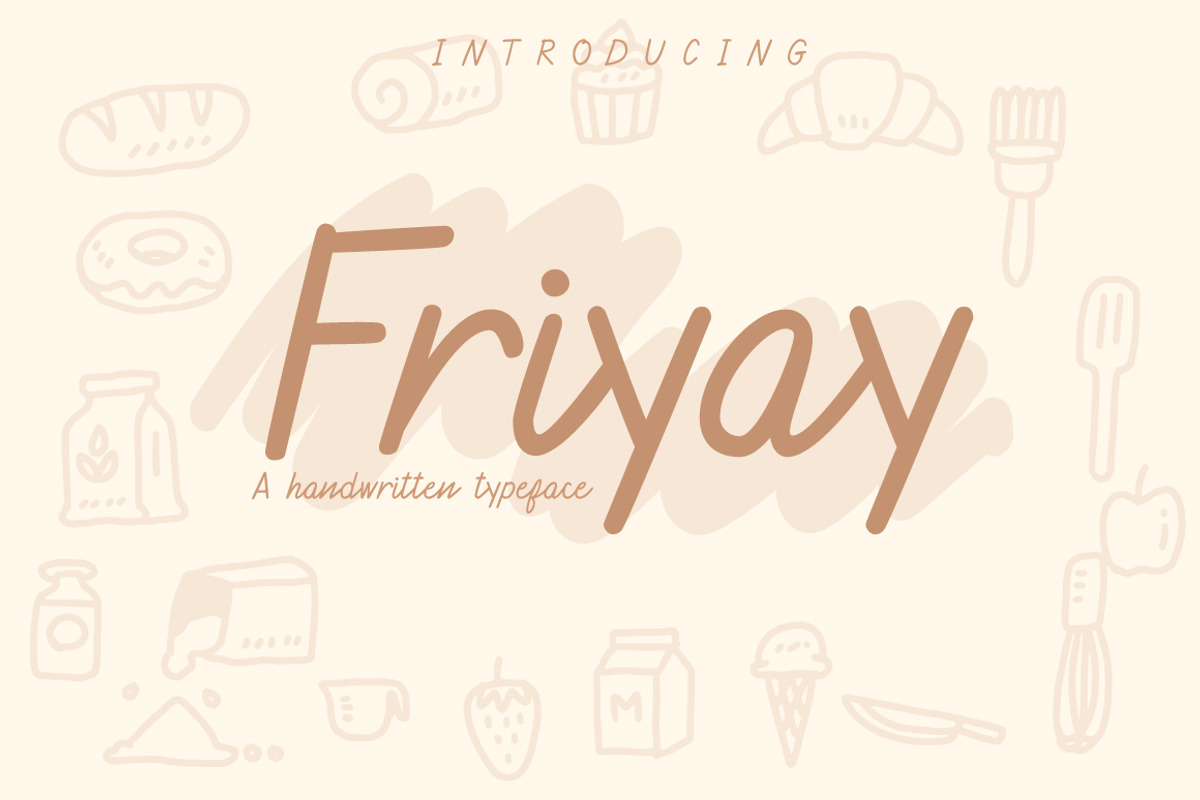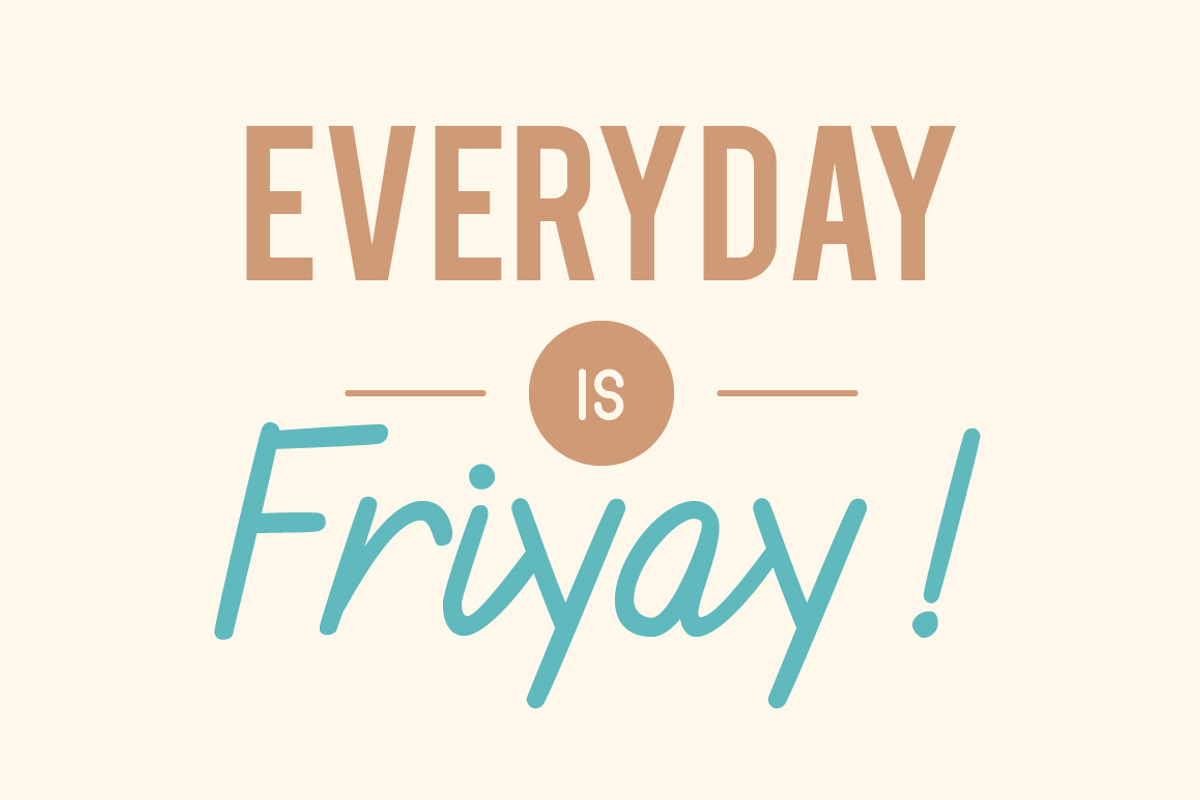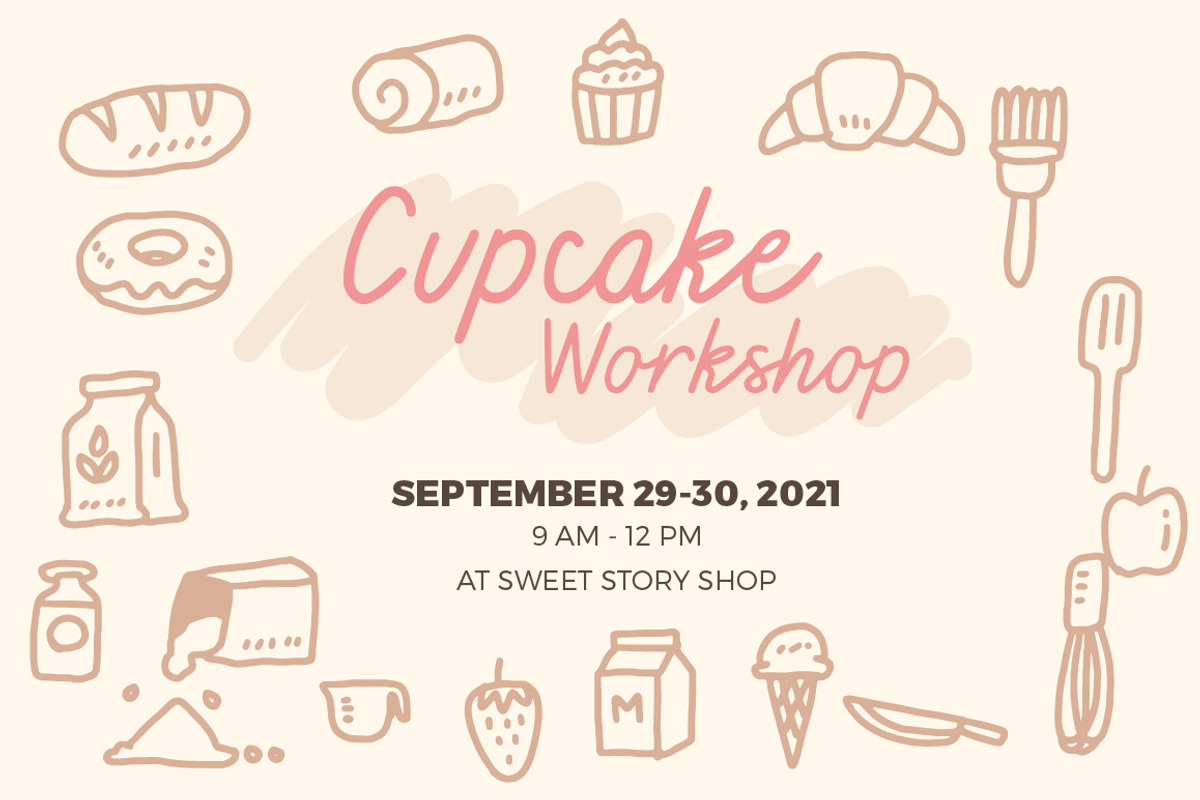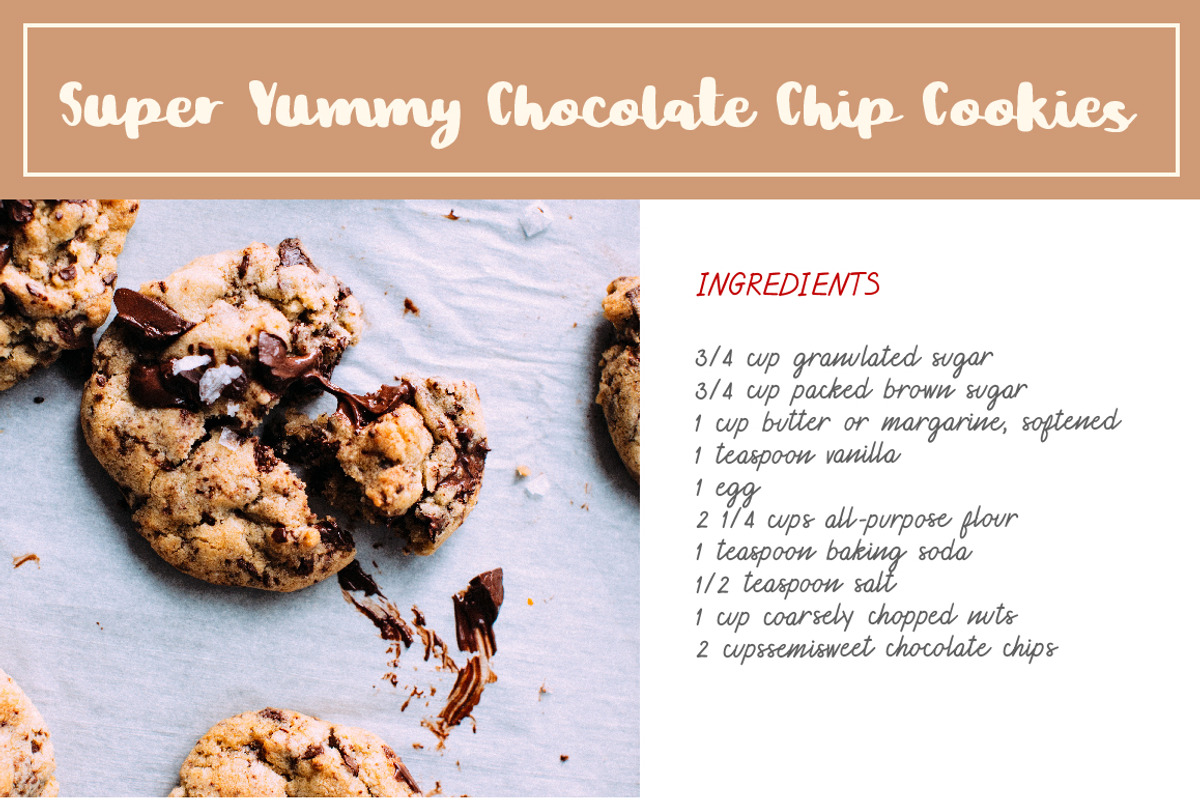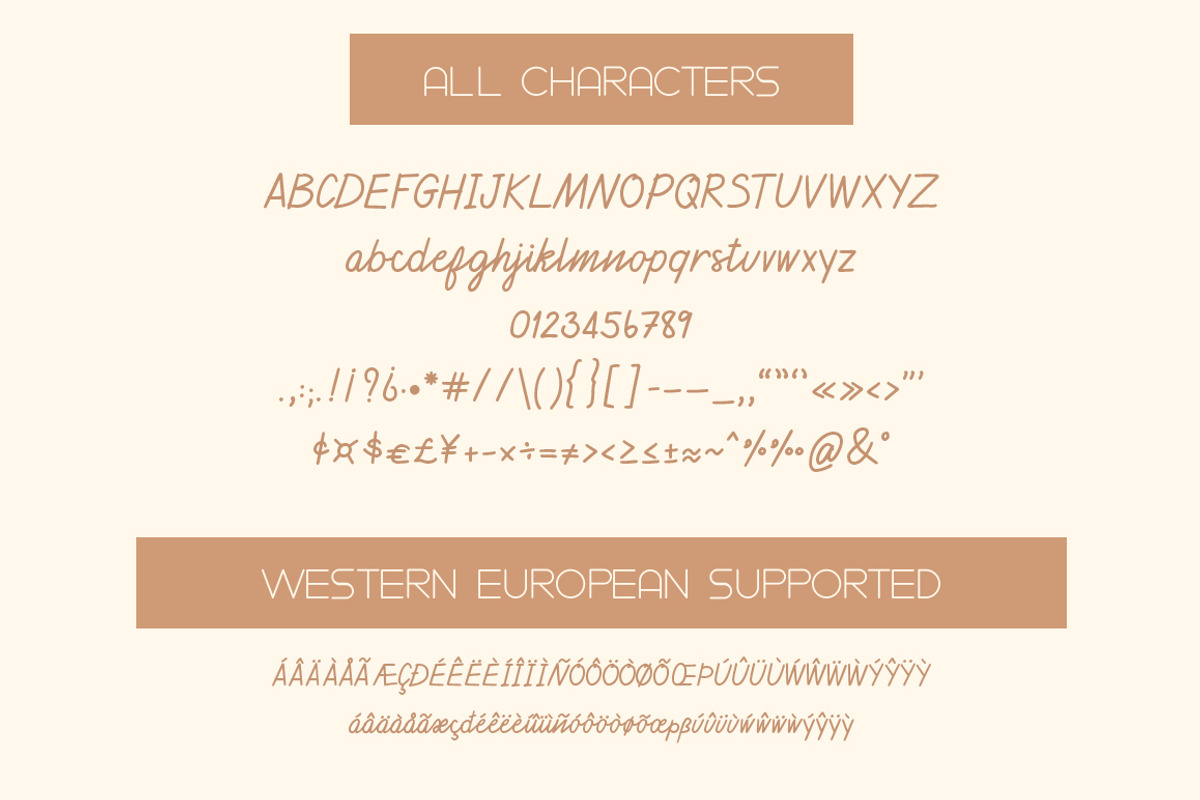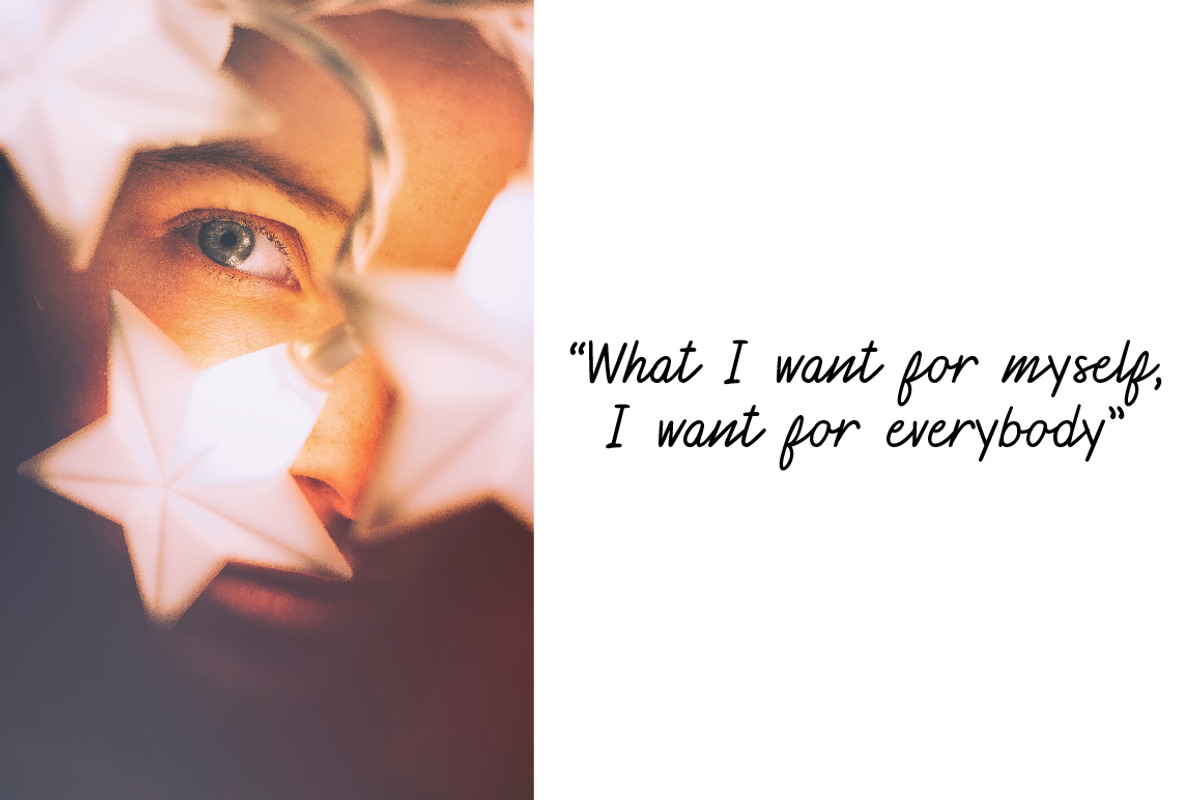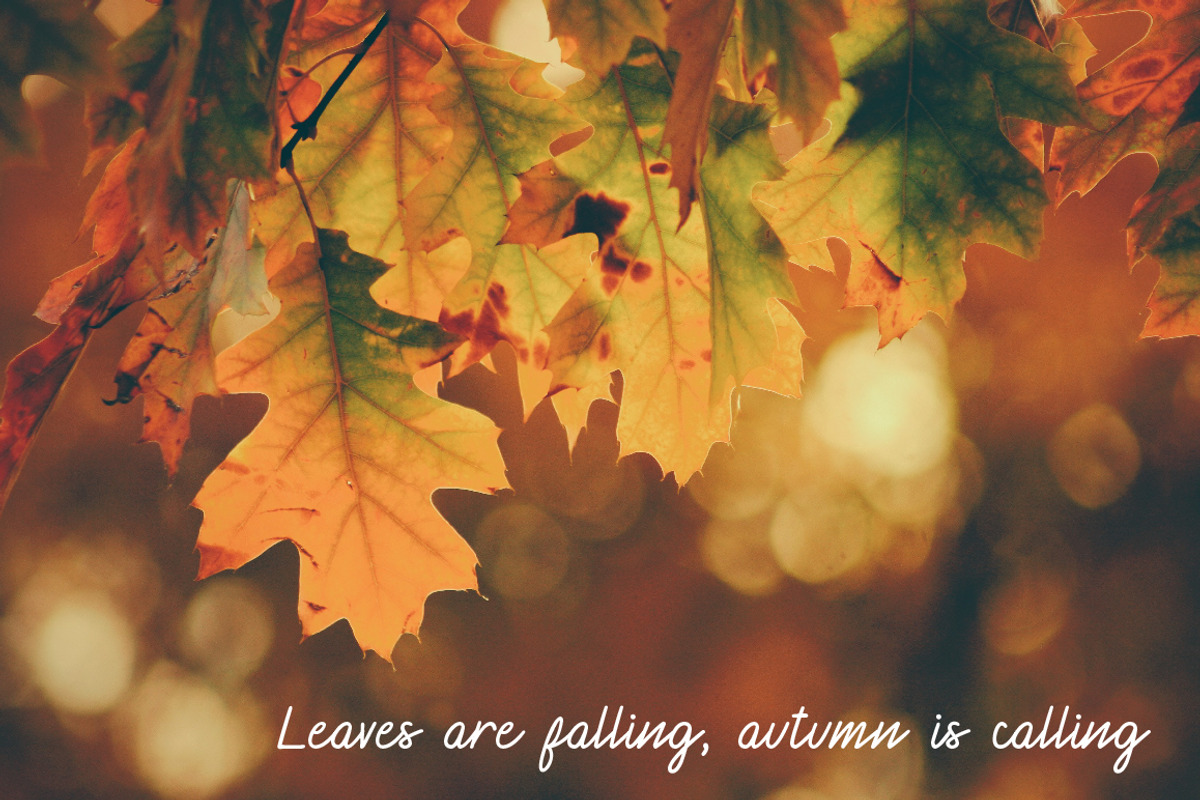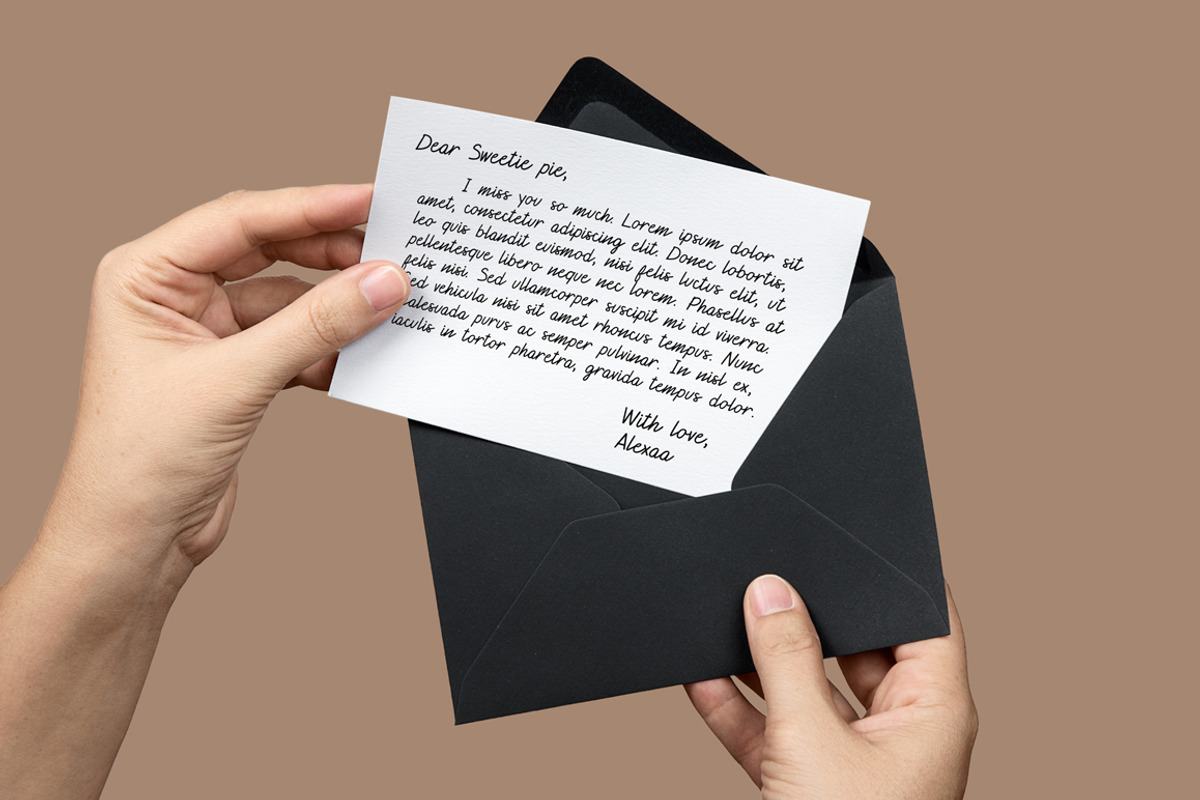
Friyay Handwritten Typeface
I would like to introduce Friyay, a handwriting typeface
Friyay is a slant handwriting typeface with mono line weight stoke, giving off a clean vibe, informal and neat human handwriting look. It can be used as a cute minimal-style header display or as a stylish text for magazine, blog, branding, packaging, wedding invitation project, etc.
Standard English(A-Z, a-z)
Western European supported
numbers(0-9) & punctuations